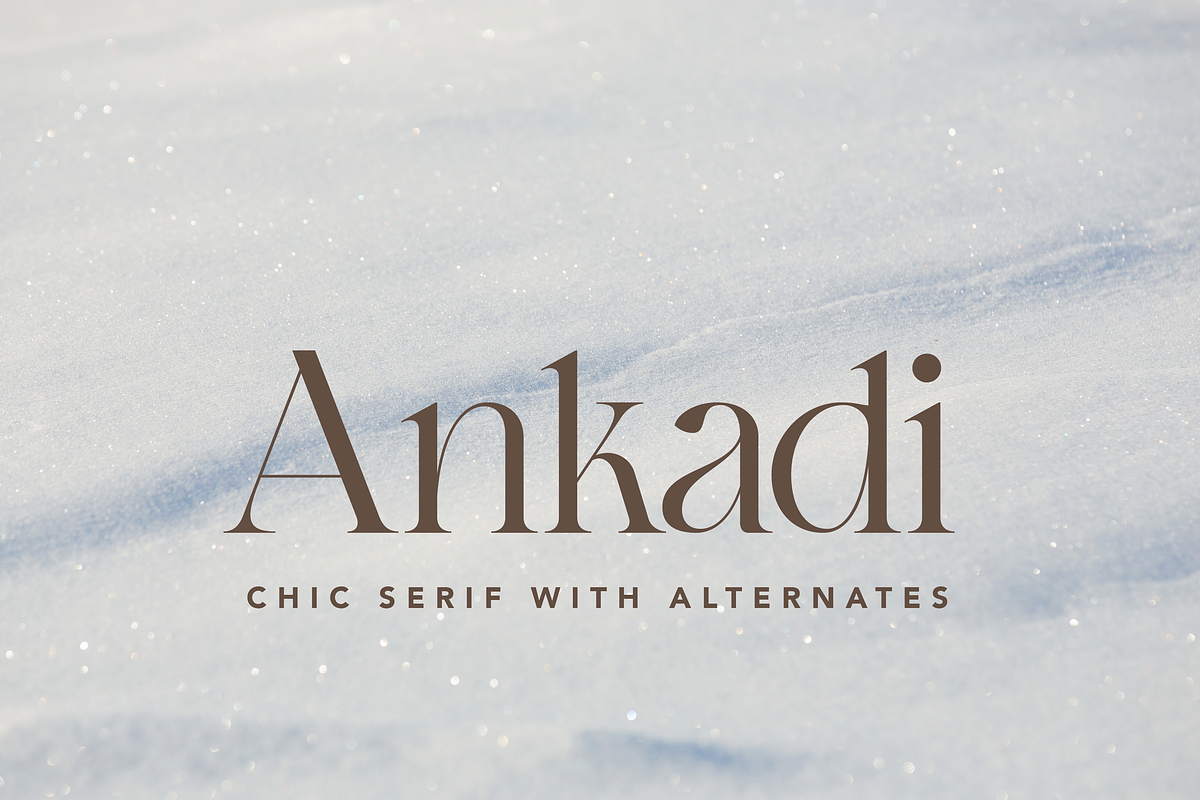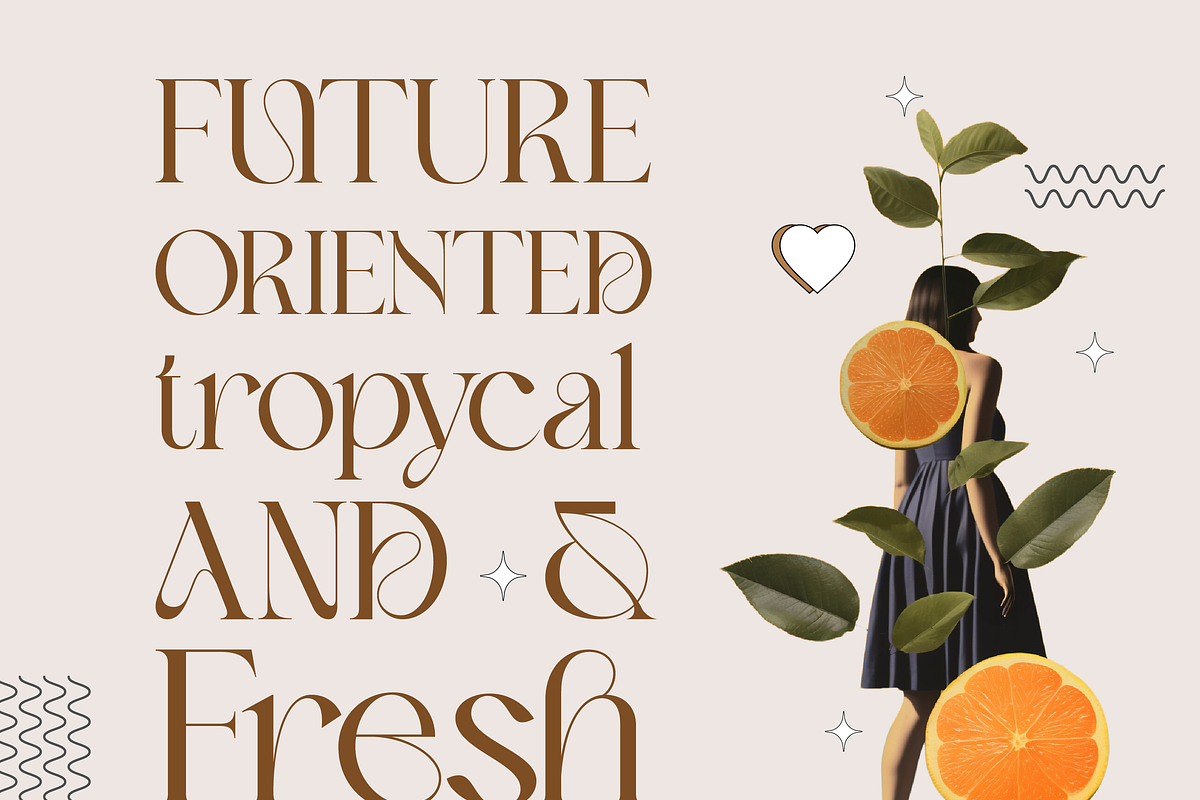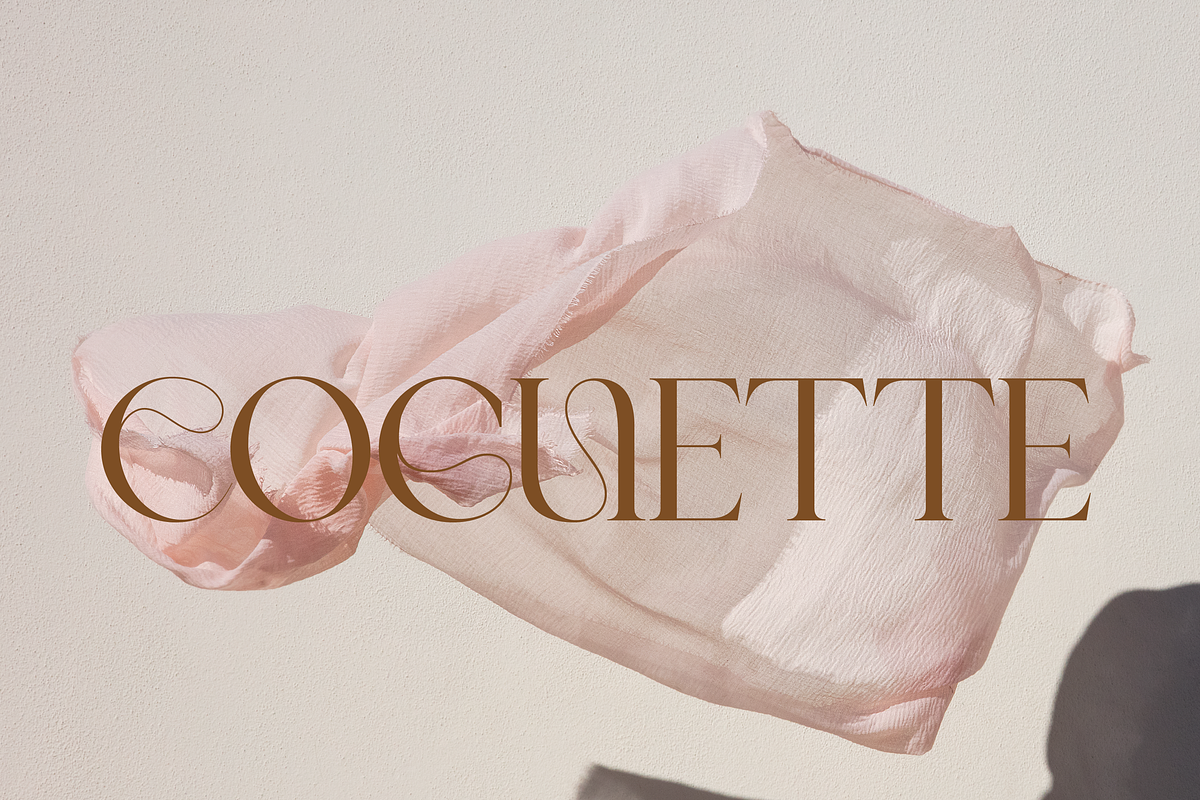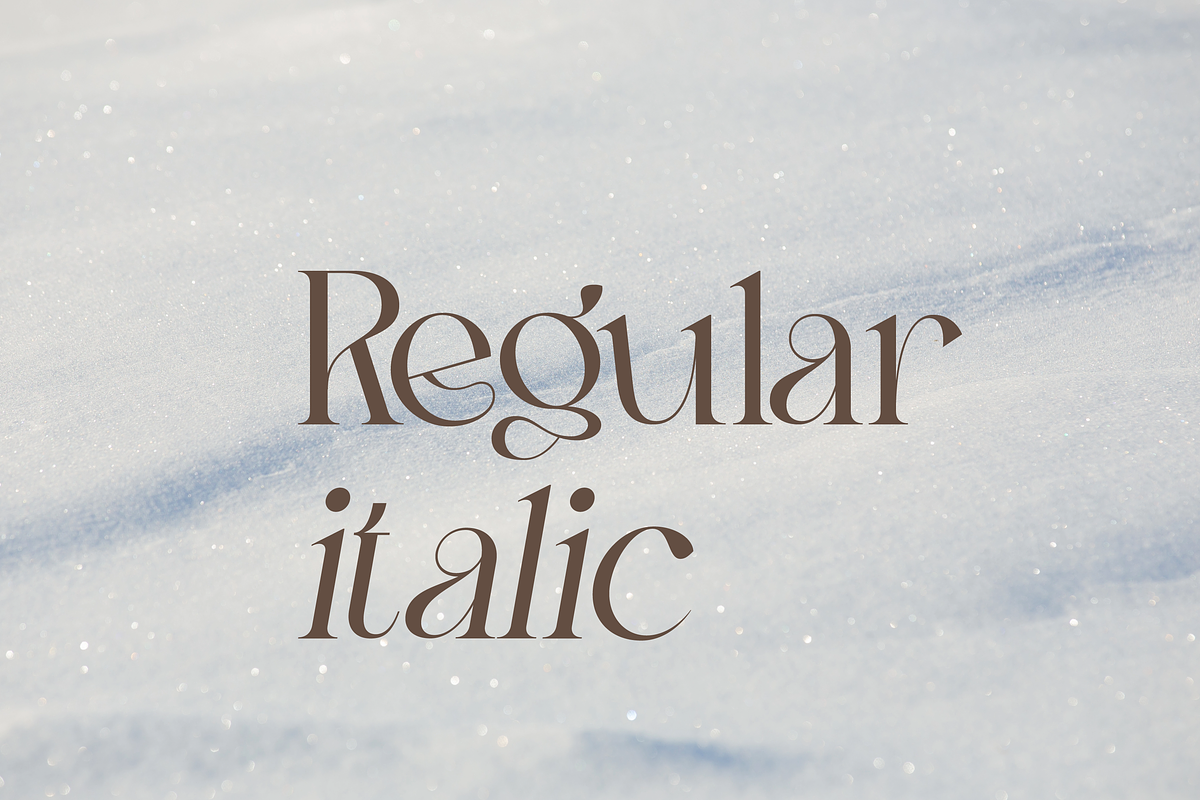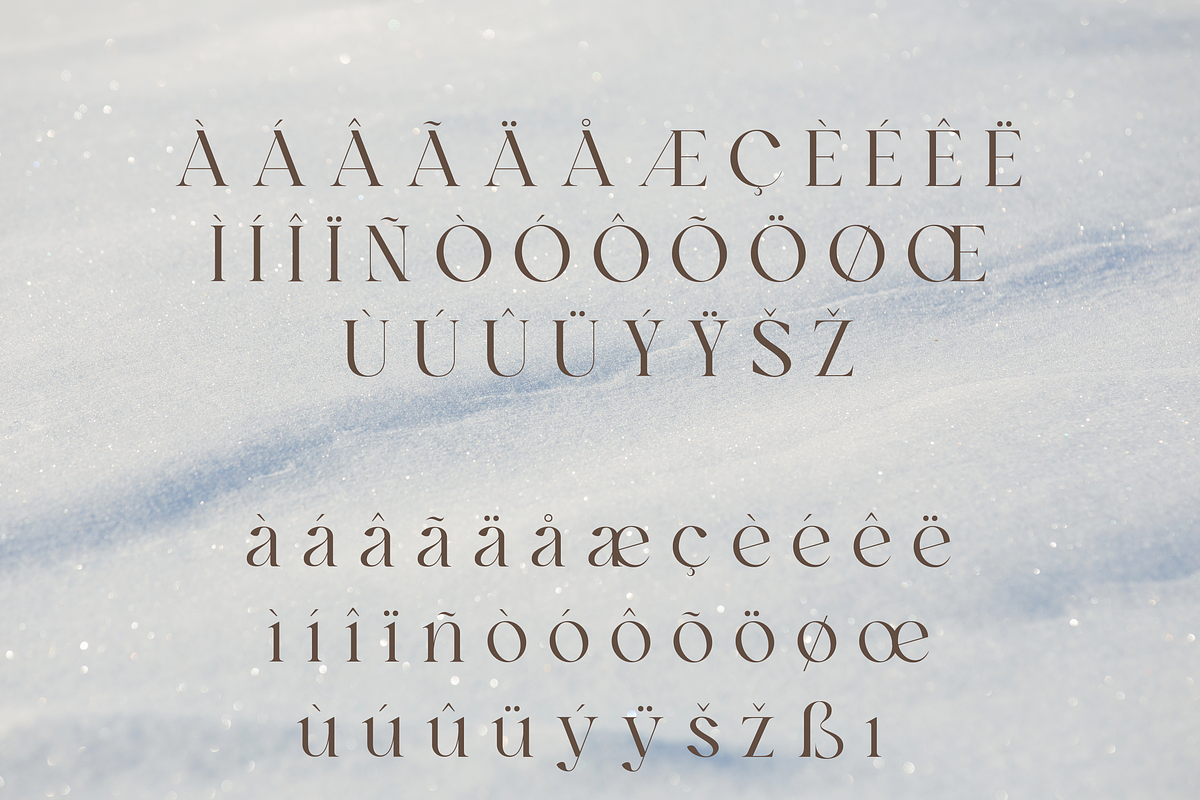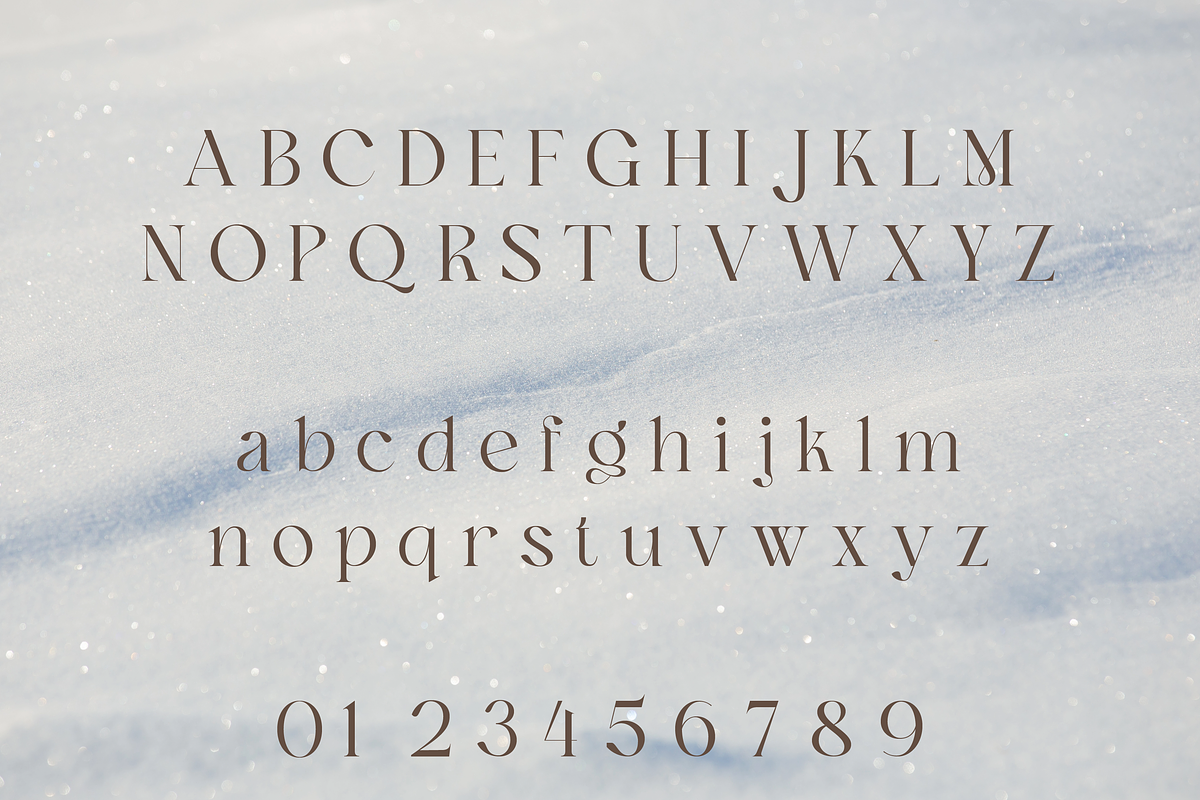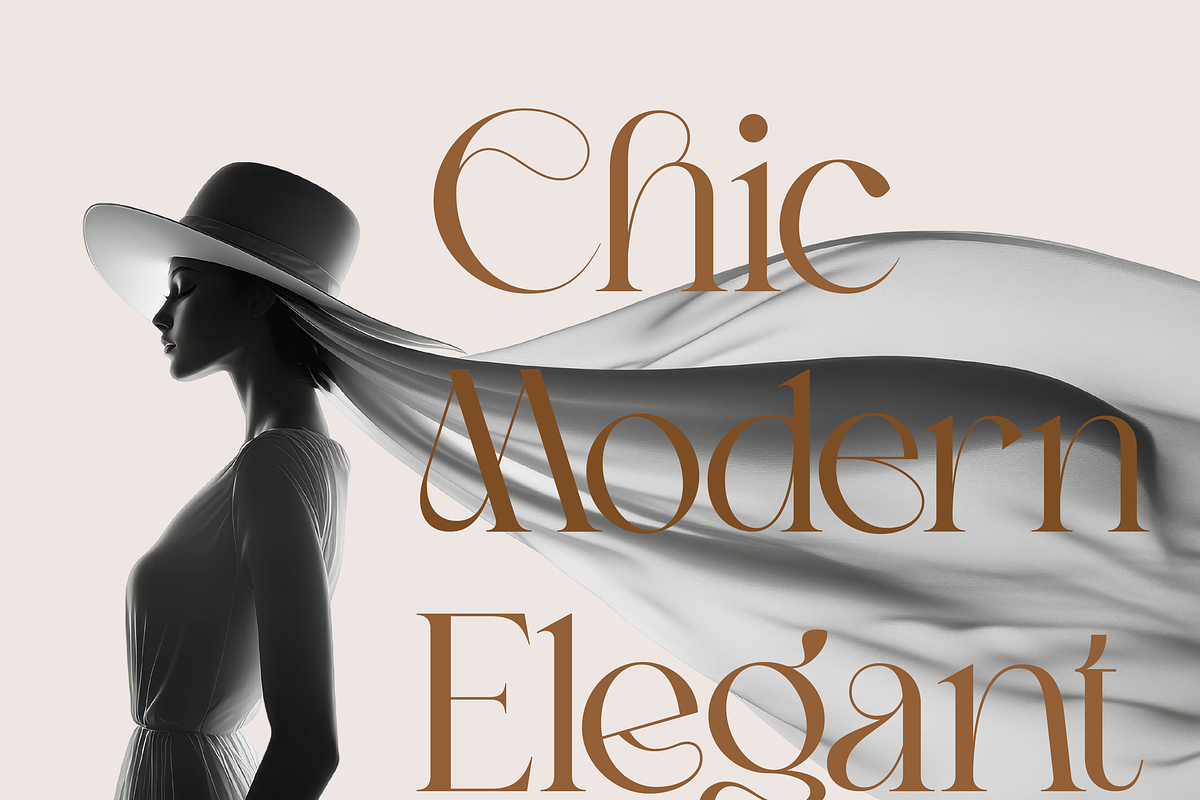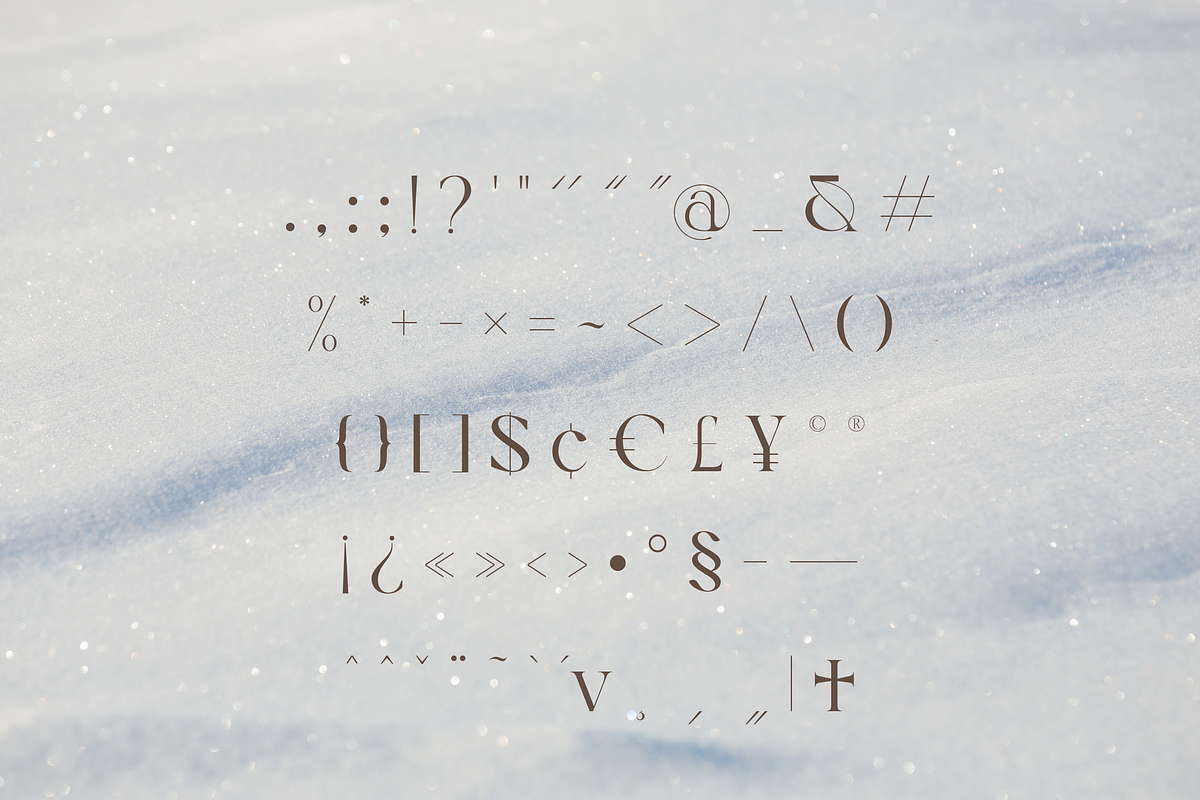
Ankadi Serif
Ankadi Serif – An Elegant Font with Refined Alternates
Ankadi Serif is a sophisticated serif typeface distinguished by its graceful curves and refined stroke contrast. Designed for versatility, it features a curated set of alternates and ligatures that let you tailor each letter pair for optimal harmony and style.
With its blend of classic elegance and modern flexibility, Ankadi Serif is the perfect choice for any project that demands a touch of luxury and bespoke typographic finesse.